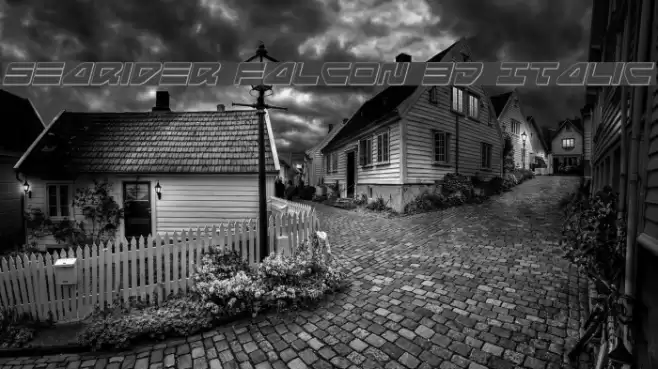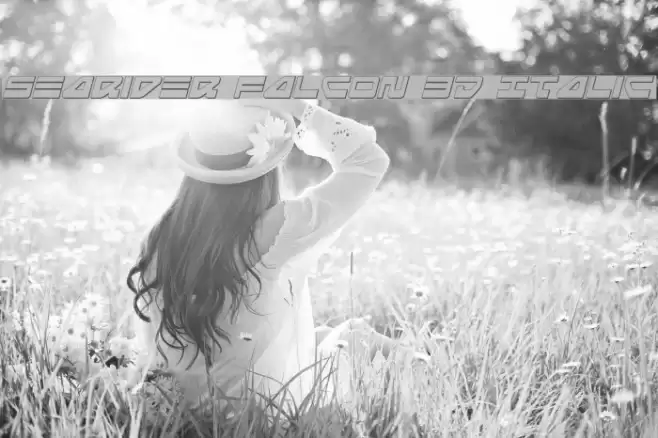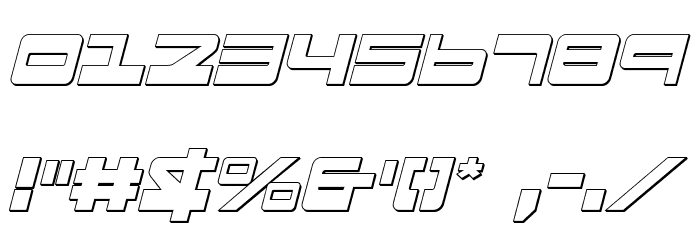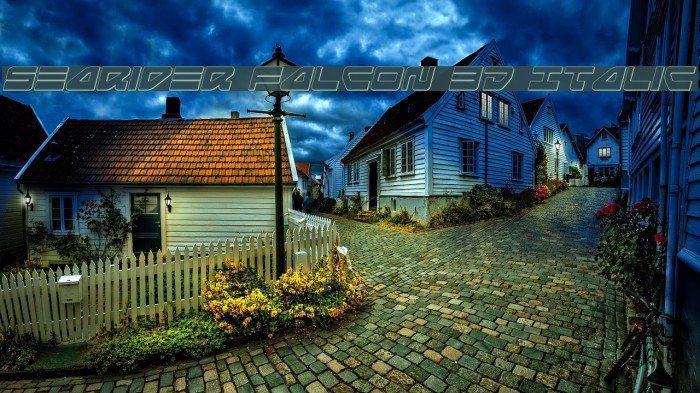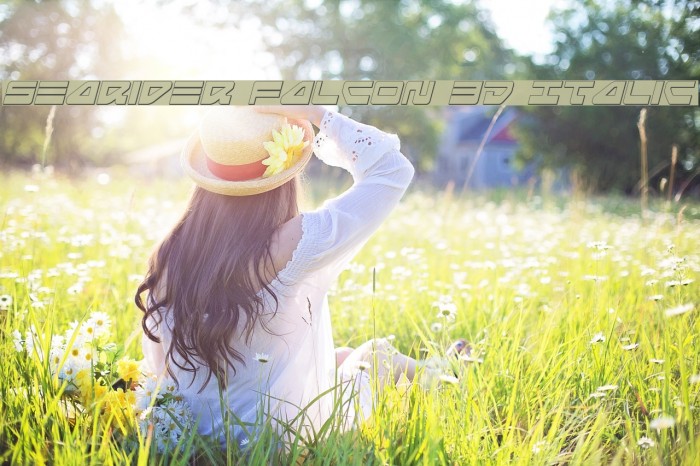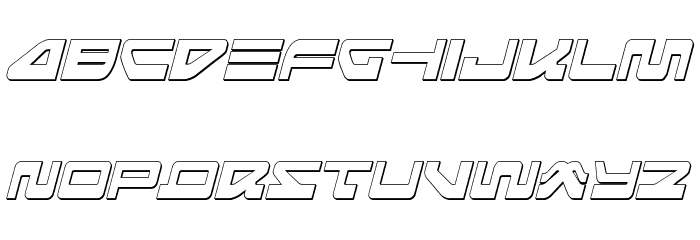
Searider Falcon 3D Italic Font
Searider Falcon 3D Italic Description
This font features a futuristic and angular design with a 3D effect that gives it a dynamic and bold appearance. The characters are outlined, creating a sense of depth and movement. The uppercase and lowercase letters maintain a consistent geometric style, with sharp edges and a slight slant that enhances the italicized look. The numbers and special characters follow the same design principles, ensuring uniformity across all glyphs. This font is ideal for projects that require a modern and edgy aesthetic, such as technology-related branding or sci-fi themed designs.
A futuristic, 3D italic font with angular, outlined characters from Sci-fi fonts.
- Proposed Projects: Ideal for sci-fi movie posters, tech branding, video game titles, and futuristic event flyers.